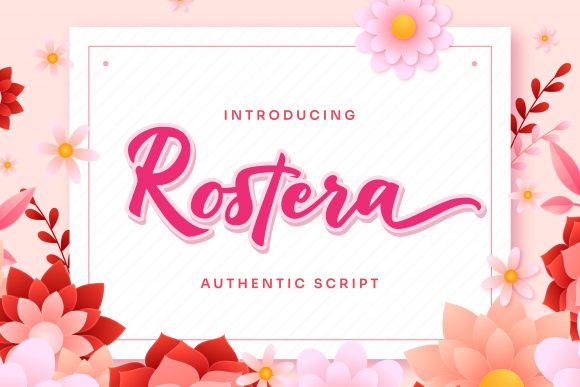
Step into the world of Rostera, a script font that exudes timeless elegance and contemporary flair. Inspired by the beauty of classic calligraphy, Rostera is a carefully crafted font that strikes a perfect balance between thin and thick strokes, creating a visually captivating and harmonious flow.
With its impeccable form and unwavering consistency, Rostera elevates your projects to new heights of sophistication. Whether you're designing eye-catching labels, crafting heartfelt invitations, or creating stunning social media graphics, Rostera's versatility and charm will leave a lasting impression.
Unleash your creativity and explore the endless possibilities of Rostera. Its graceful curves and elegant swashes bring a touch of refinement to any project, adding a layer of visual interest that captivates the eye. Let Rostera's timeless beauty enhance your designs and leave a lasting impact on your audience.
Embark on a journey of creativity with Rostera, and discover the transformative power of a font that embodies both classic elegance and modern appeal. Its versatility and charm will elevate your projects, adding a touch of sophistication and timeless beauty that will leave your audience spellbound.